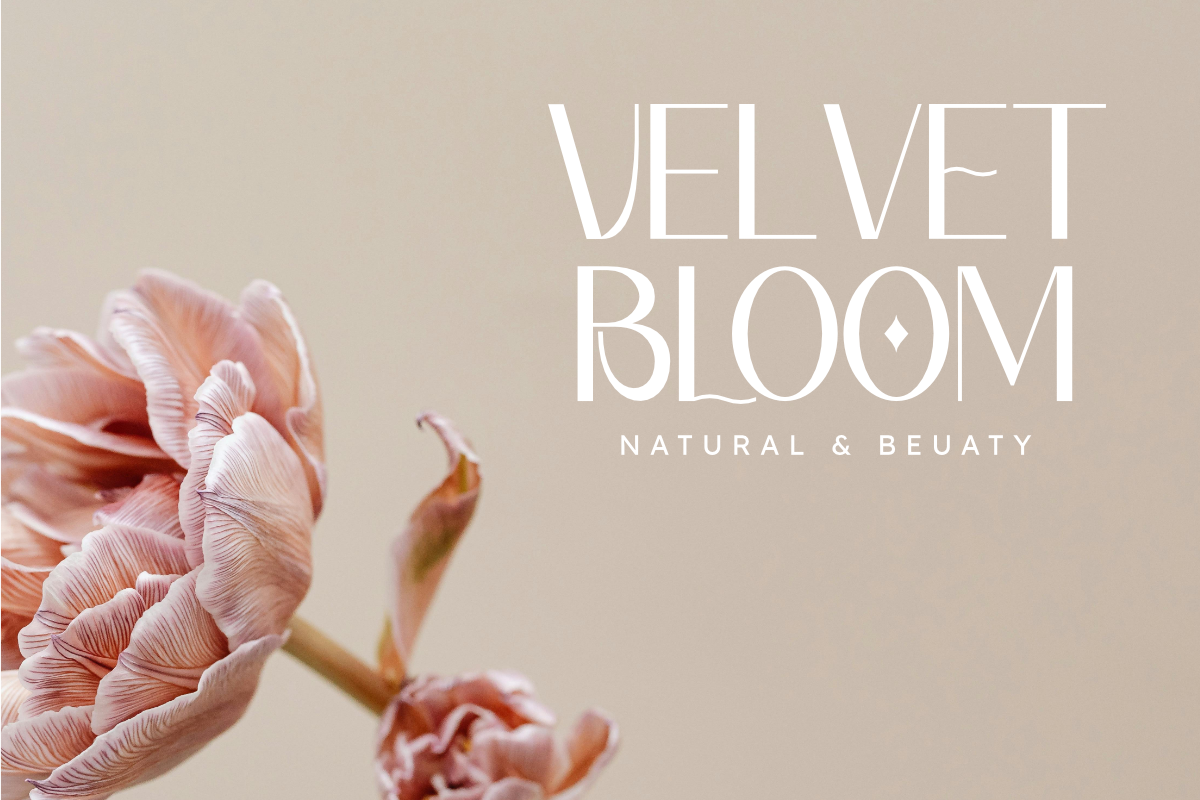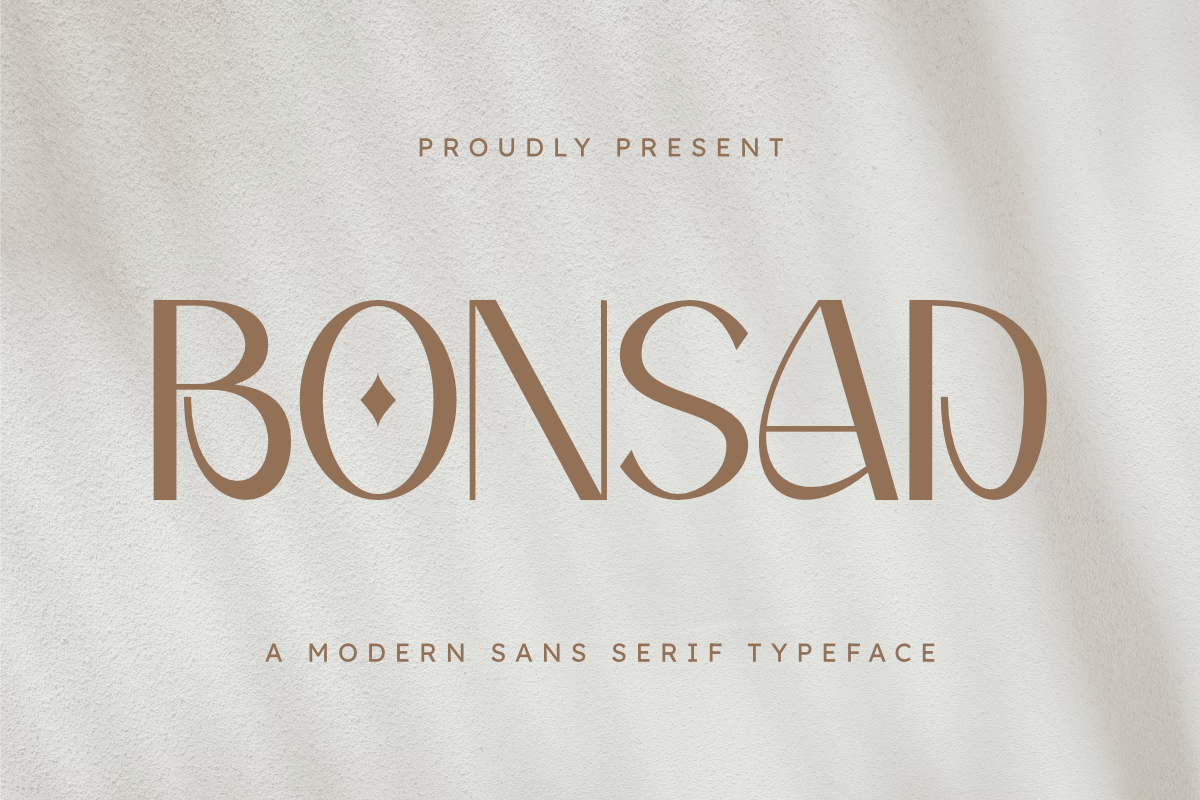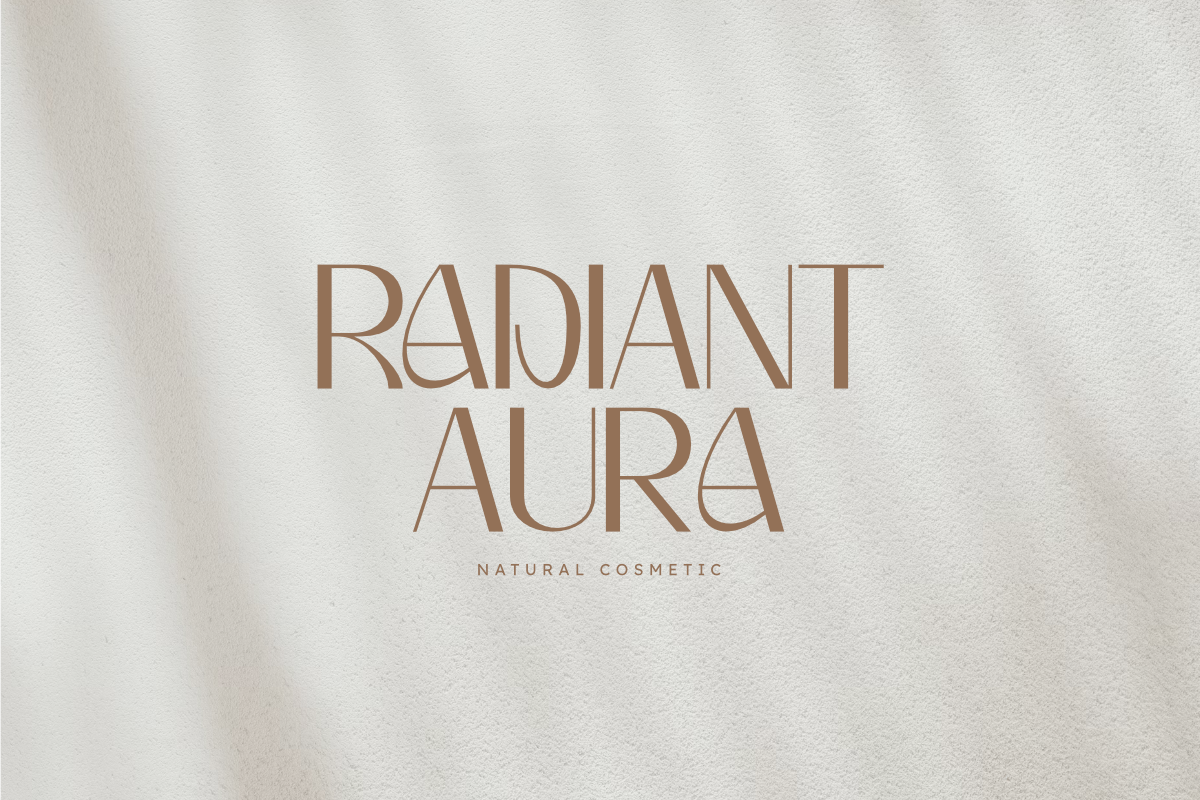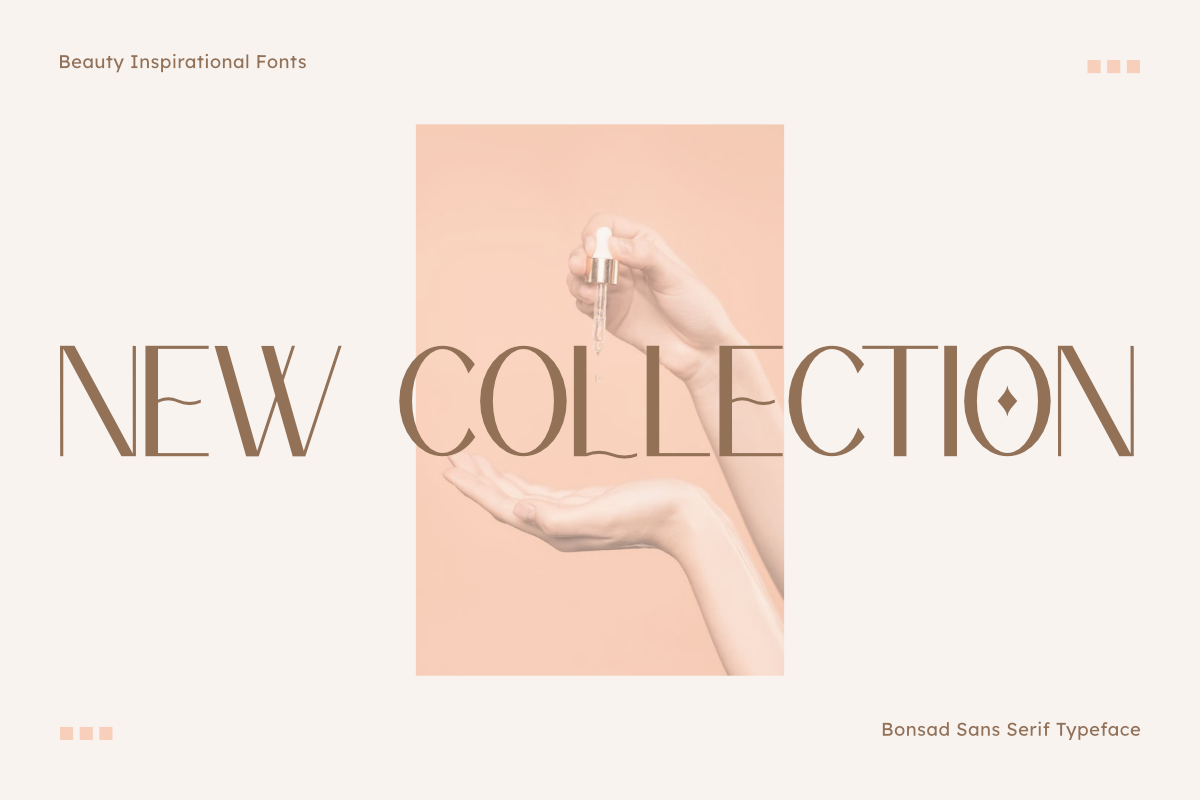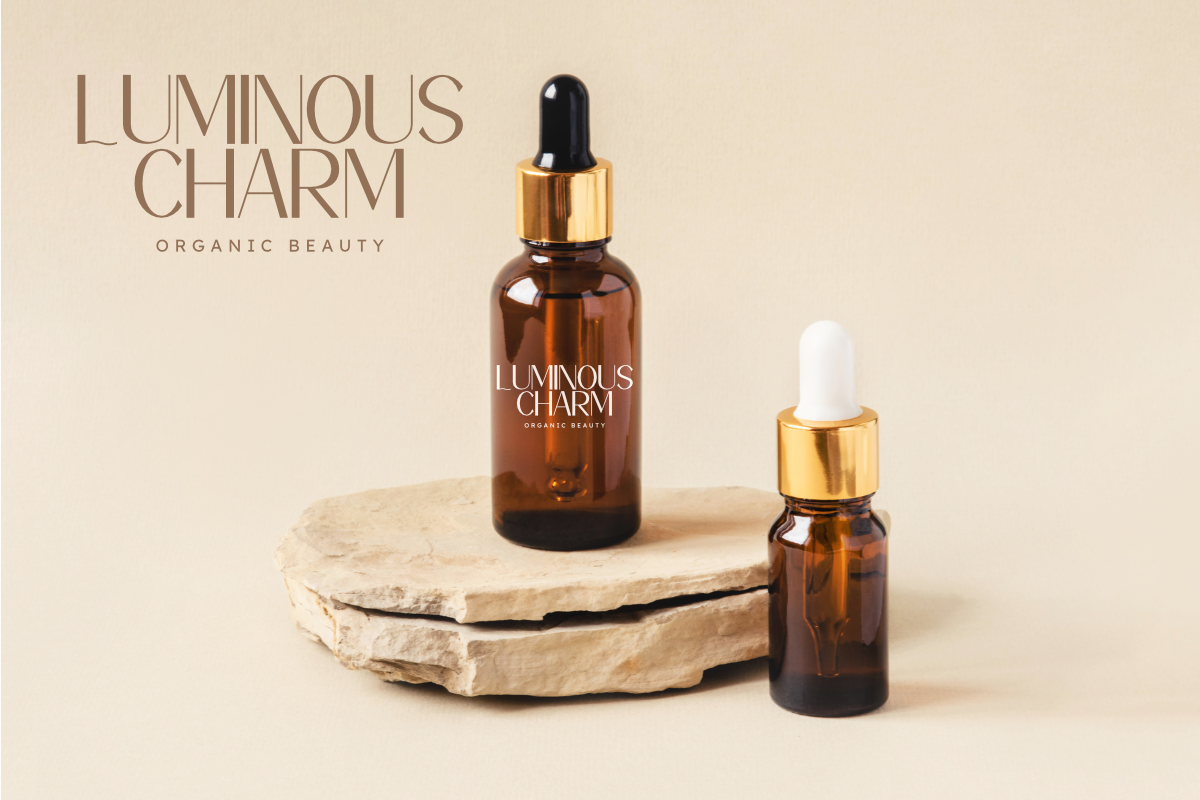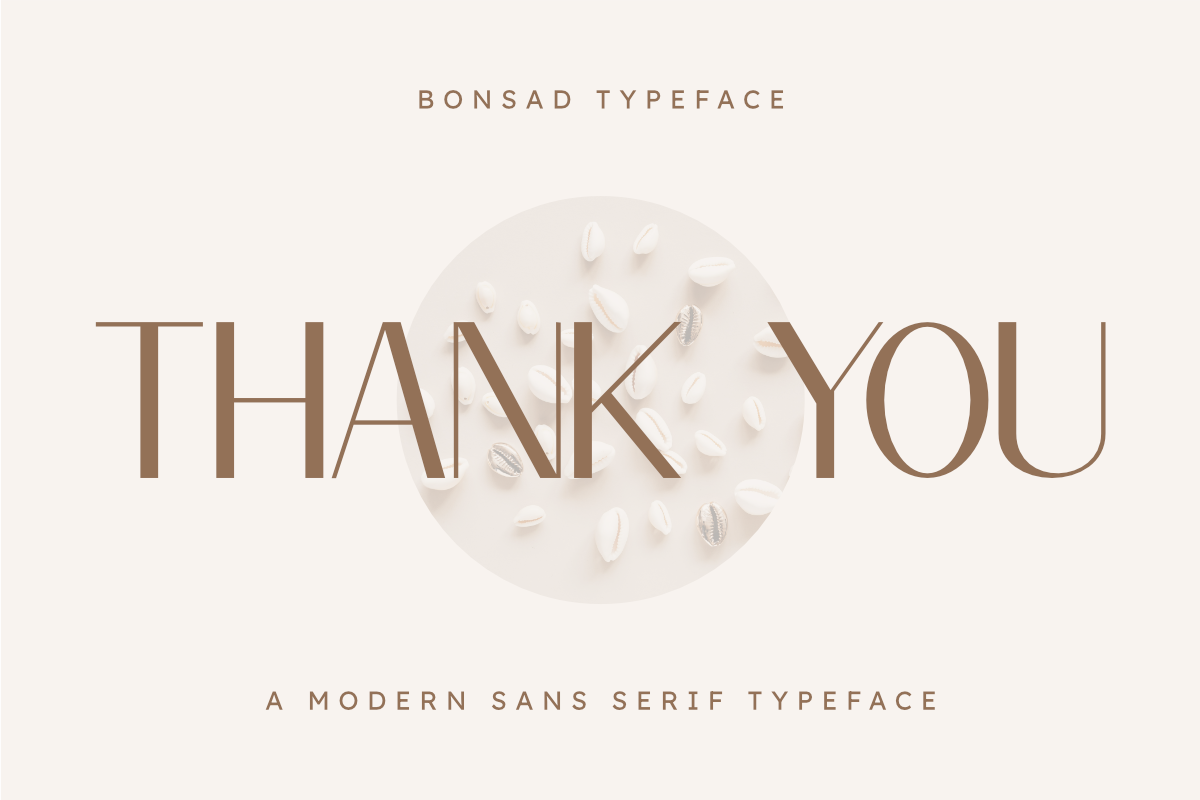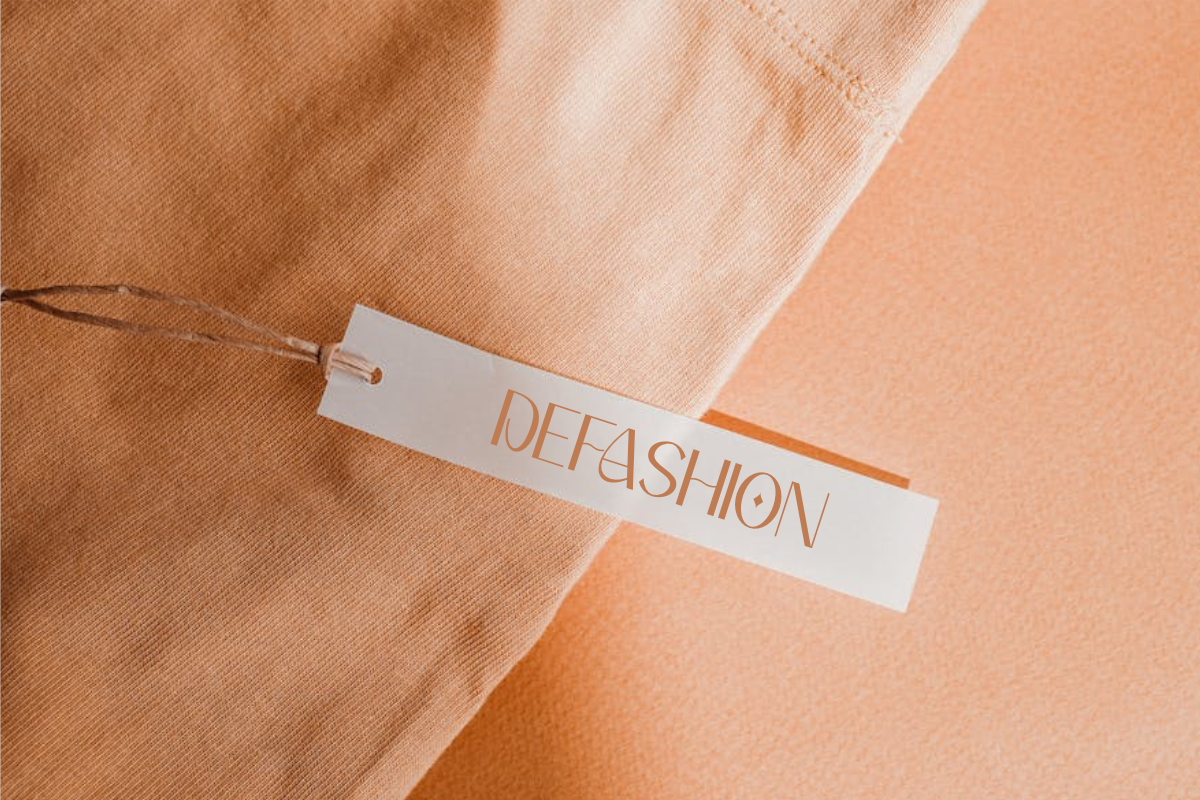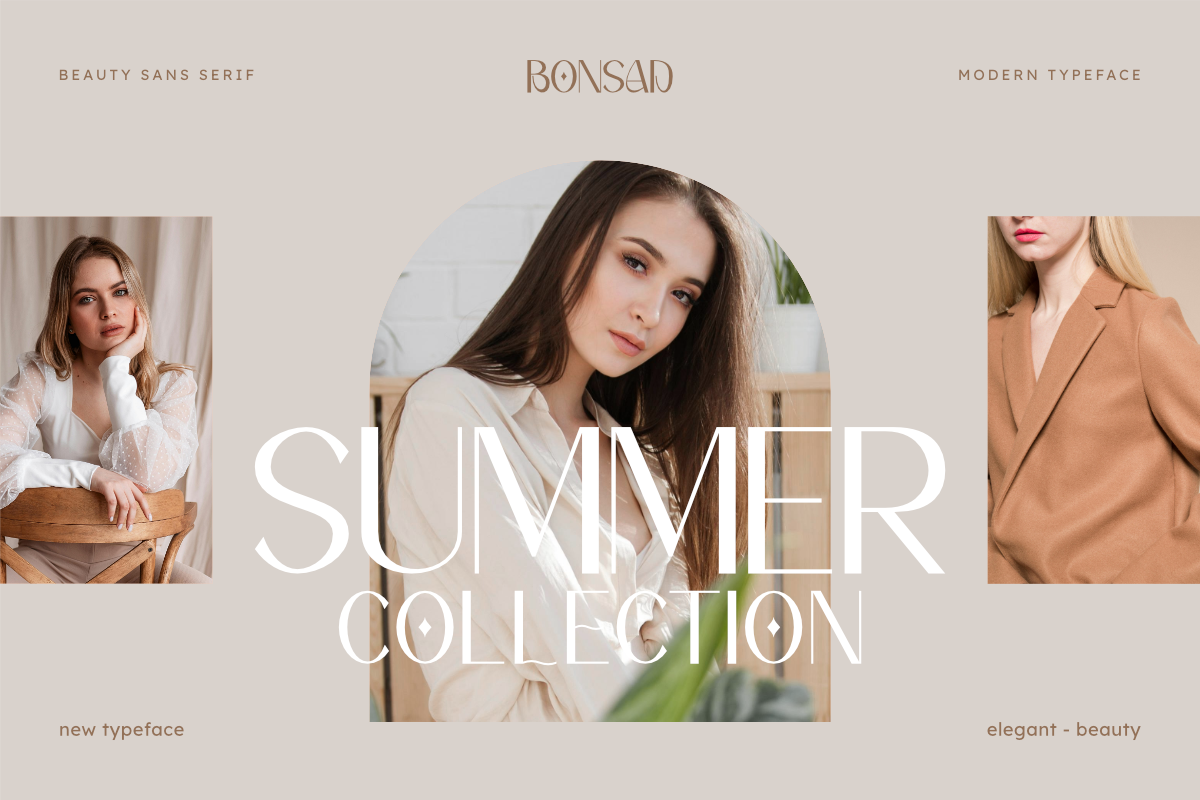
Bonsad - Modern Sans Serif Font
Bonsad is an elegant sans serif font. This magical style font gives an extraordinary impression. This font is perfect for various projects such as branding, cosmetics, business, logos, initials, quotes, web, social media, and many other creative ideas. Thank You